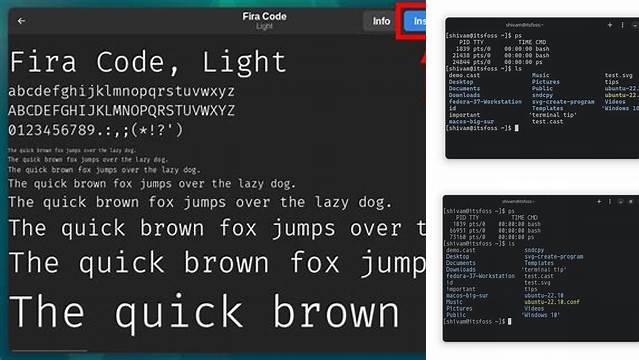
Best Fonts For Terminal Linux: Enhance Your Coding Experience
Hey there, terminal enthusiasts! Ever feel like your command-line experience could use a little... pizzazz? You're not alone! Choosing the best fonts for terminal Linux can dramatically enhance your coding sessions, system administration tasks, and overall productivity. No more squinting at pixelated characters or battling with eye strain! In this comprehensive guide, we'll dive deep into the world of terminal fonts, exploring the benefits of different styles, offering recommendations, and showing you how to install and customize your setup for a visually stunning and efficient experience. Let's get started, shall we?
Why Font Choice Matters in Your Linux Terminal
So, why should you even bother with changing your terminal font? Well, font choice matters in your Linux terminal for a few key reasons. First off, readability is crucial. Let's be real, you spend a lot of time staring at that terminal. The right font can make a massive difference in how easy it is to distinguish between characters, especially when dealing with code, which can be full of similar-looking symbols. A well-chosen font reduces eye strain and fatigue, allowing you to work for longer periods without feeling like your vision is betraying you. Secondly, aesthetics play a role. Let's face it: a visually appealing terminal is just more enjoyable to use. It can make your entire workflow feel more streamlined and professional. A beautiful font can also inspire you. It's a small thing, but it can make your day a little bit better. Finally, some fonts are specifically designed for programming and offer benefits like clear differentiation of symbols, better support for ligatures (where certain character combinations are merged into a single glyph), and improved legibility at small sizes. Choosing the right font is about finding something that is comfortable for your eyes and that helps you work more efficiently. A good font can also give you the pleasure of making your terminal look cool. When you can find the perfect font for you, it means you'll be able to code for hours and get work done without getting tired. So in short, fonts impact your overall productivity. Make sure to find your best fonts for terminal Linux.
Top Font Recommendations for Linux Terminals
Alright, guys, let's get into some recommendations! Here are some of the top font recommendations for Linux terminals, categorized by their strengths:
1. Monospaced Fonts for Coding:
- Fira Code: Fira Code is a popular choice among programmers. It's a monospaced font with excellent readability and support for programming ligatures. What are ligatures? They're special character combinations that combine two or more characters into one glyph. This can make your code look cleaner and more visually appealing, and it can also make it easier to read. For example, in Fira Code,
!=might be rendered as a single, more distinct symbol, making it easier to distinguish from other characters. Plus, Fira Code is open-source, so you can use it for free! The benefits of Fira Code are that it allows you to code smoothly. Many programmers enjoy using it in their IDE to enhance the readability of their code. If you are a person who likes to code, I strongly recommend you choose this font, you will definitely love it! So if you're looking for a font that's both visually appealing and functional, Fira Code is definitely worth checking out. It supports ligatures and it's monospaced so you can easily see the letters in your coding. - Roboto Mono: Roboto Mono is a clean, modern monospaced font that's part of the larger Roboto family. It's designed to be highly readable at various sizes and has a simple, geometric design. This font is great for general use and coding. The characters of this font look great, and it's especially good if you're working on a project with many different characters and symbols. It makes everything look very neat. It is a pretty font to use! The advantages of this font are that it's easy to read, and it is also used by Google. It looks great on every Linux terminal. It's definitely something to consider when you are going through your options to pick your best fonts for terminal Linux.
- Inconsolata: Inconsolata is another classic monospaced font, specifically designed for code. It's known for its excellent legibility and distinct character shapes, making it easy to differentiate between similar-looking characters like
l,1, andI. If you are someone who likes to see the clarity of the coding, then this is a good option for you. Many coders also love this font! It's a very popular option. Inconsolata is a great choice if you're looking for something that's both functional and visually appealing. It's a timeless and reliable choice for any programmer or terminal user.
2. Fonts for General Use:
- Ubuntu Mono: This is the monospaced variant of the Ubuntu font family, designed by Dalton Maag for Canonical. It's a very readable font with a friendly, modern aesthetic, and it's a solid choice for general terminal use. Ubuntu Mono is particularly well-suited for those who want a consistent look across their desktop and terminal. When you like something consistent, then this is a great option. Overall, Ubuntu Mono is a versatile and reliable font that is suitable for a wide range of users.
- DejaVu Sans Mono: DejaVu Sans Mono is a versatile and reliable option for Linux terminals. DejaVu Sans Mono is a monospaced font known for its extensive character coverage. It supports a wide range of languages and special characters, which can be super useful if you're working with international projects or need to display a variety of symbols. Also, It's a great option if you're looking for a font that supports a wide range of characters. It's a very clear font and very easy to read.
3. Fonts for a Unique Look:
- Hack: Hack is a monospaced font specifically designed for coding, but with a more distinctive look. It's great if you want your terminal to stand out a bit. It's another popular choice among programmers. Hack is a clear and readable font, and the characters are well-spaced. Hack has good spacing, which can be a benefit if you're working with code that has a lot of different characters and symbols. Hack is a solid choice for anyone who wants a clean and modern font. It is also a good option if you want your terminal to have a unique style.
- Source Code Pro: Source Code Pro is a monospaced font designed by Adobe. It is a very well-designed font. It's designed to be readable at small sizes, and it's a great choice if you spend a lot of time staring at your terminal. It looks very smooth, and your terminal will look clean, which is a bonus. If you like the clean look, then definitely check this out. Adobe also made this font, so you know it's a good one. Source Code Pro is a versatile and reliable choice that is suitable for a wide range of users. It is an easy to use font.